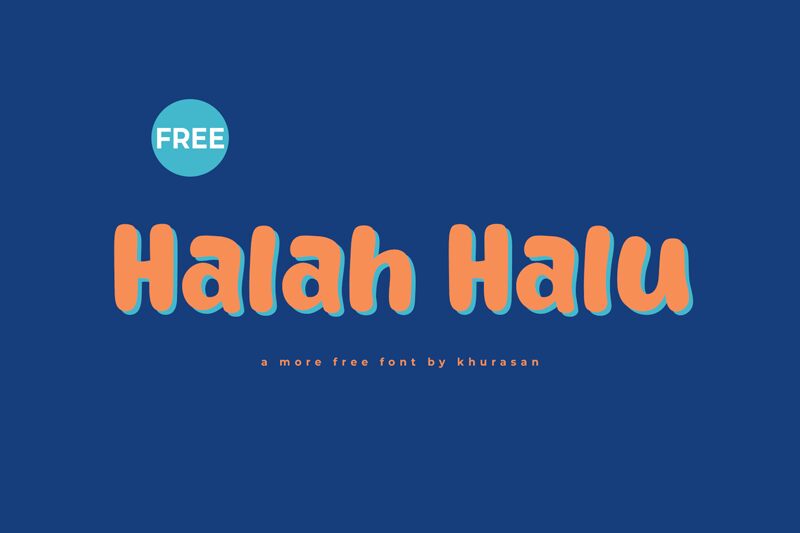
Halah Halu
Halah Halu, a whimsical and playful display font crafted by Khurasan, exudes a captivating cartoon-inspired aesthetic. With its bold, dynamic strokes and quirky character shapes, this font commands attention, infusing designs with a delightful, lighthearted vibe. The juxtaposition of thick and thin lines, coupled with the font's undulating curves, creates a visually engaging and memorable typographic experience.
Halah Halu's versatility makes it a compelling choice for a wide range of design applications, from eye-catching headlines and impactful logos to engaging social media content and vibrant packaging. Its bold, expressive nature lends itself particularly well to projects that aim to capture a sense of playfulness, energy, and youthful enthusiasm, such as children's products, party invitations, and brand identities targeting a younger demographic.